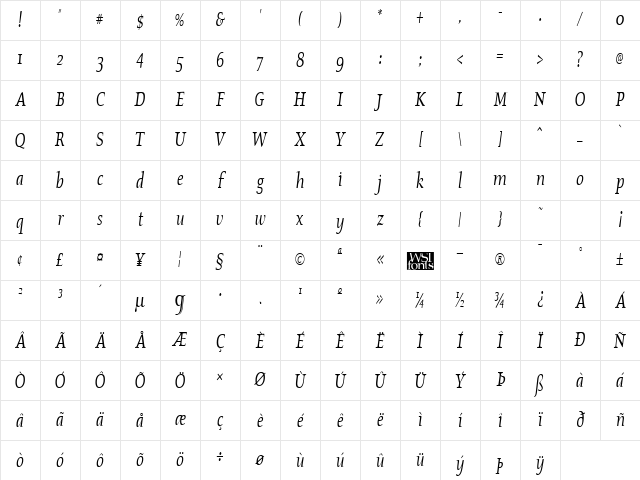
OldstyleCondensed Italic
Complete OldstyleCondensed Italic glyph index. Displaying only characters natively supported by OldstyleCondensed Italic font.
Design Context for OldstyleCondensed
OldstyleCondensed carries the refined structure of traditional serif typography, with bracketed terminals and considered proportions that communicate credibility and craft. The slanted form adds forward momentum and visual energy. Its narrow stance lets it pack a punch even in space-constrained designs.